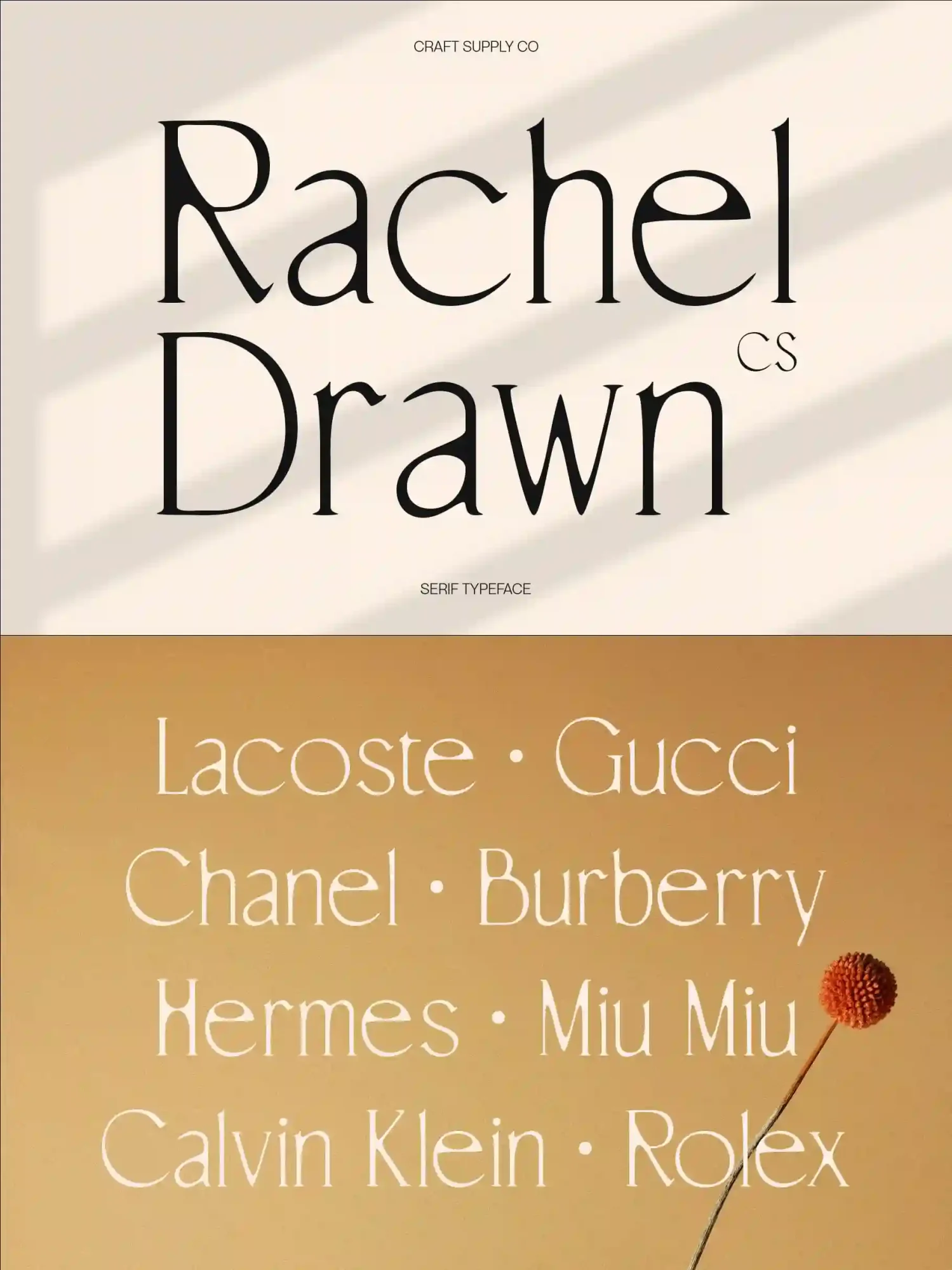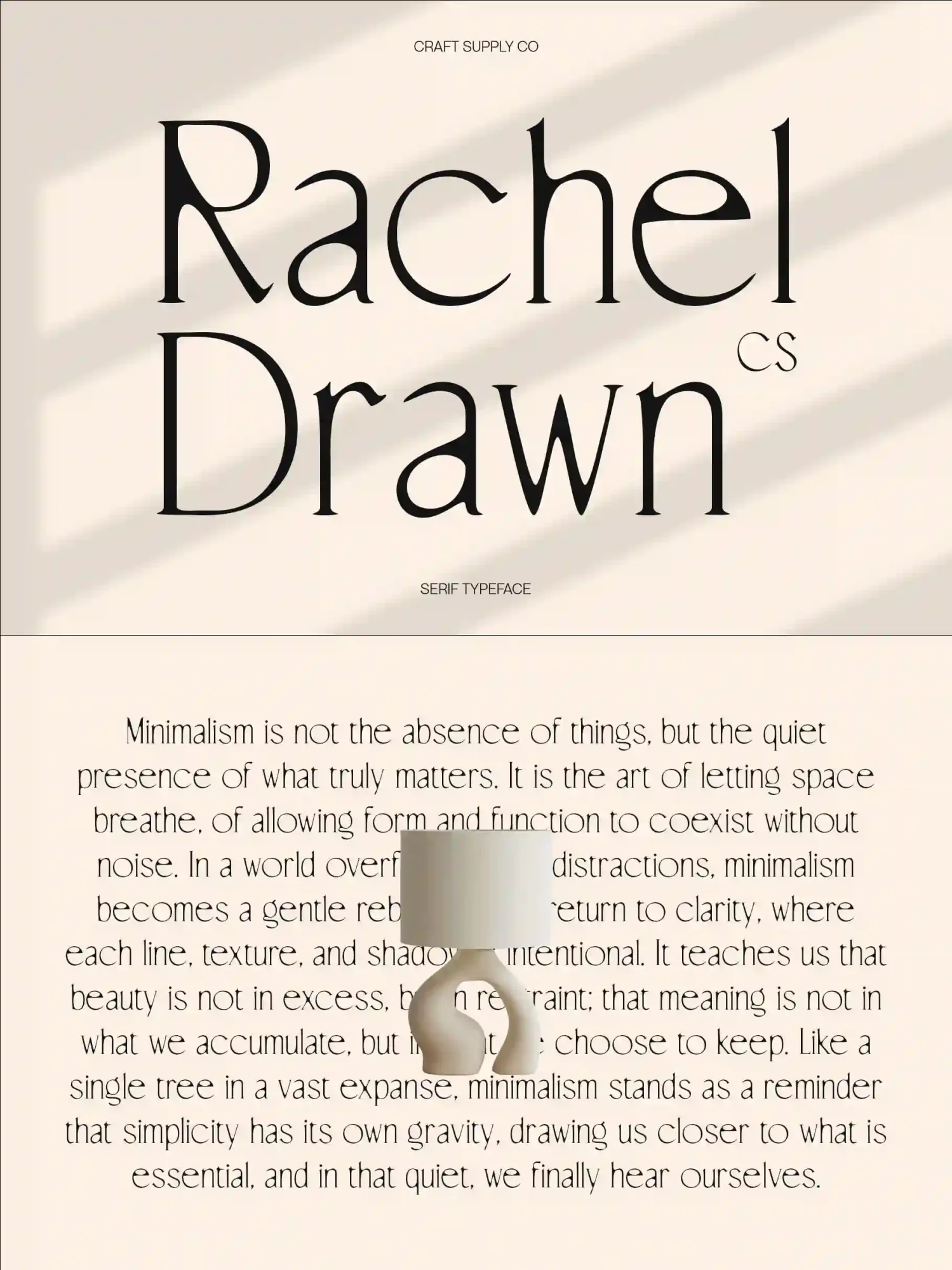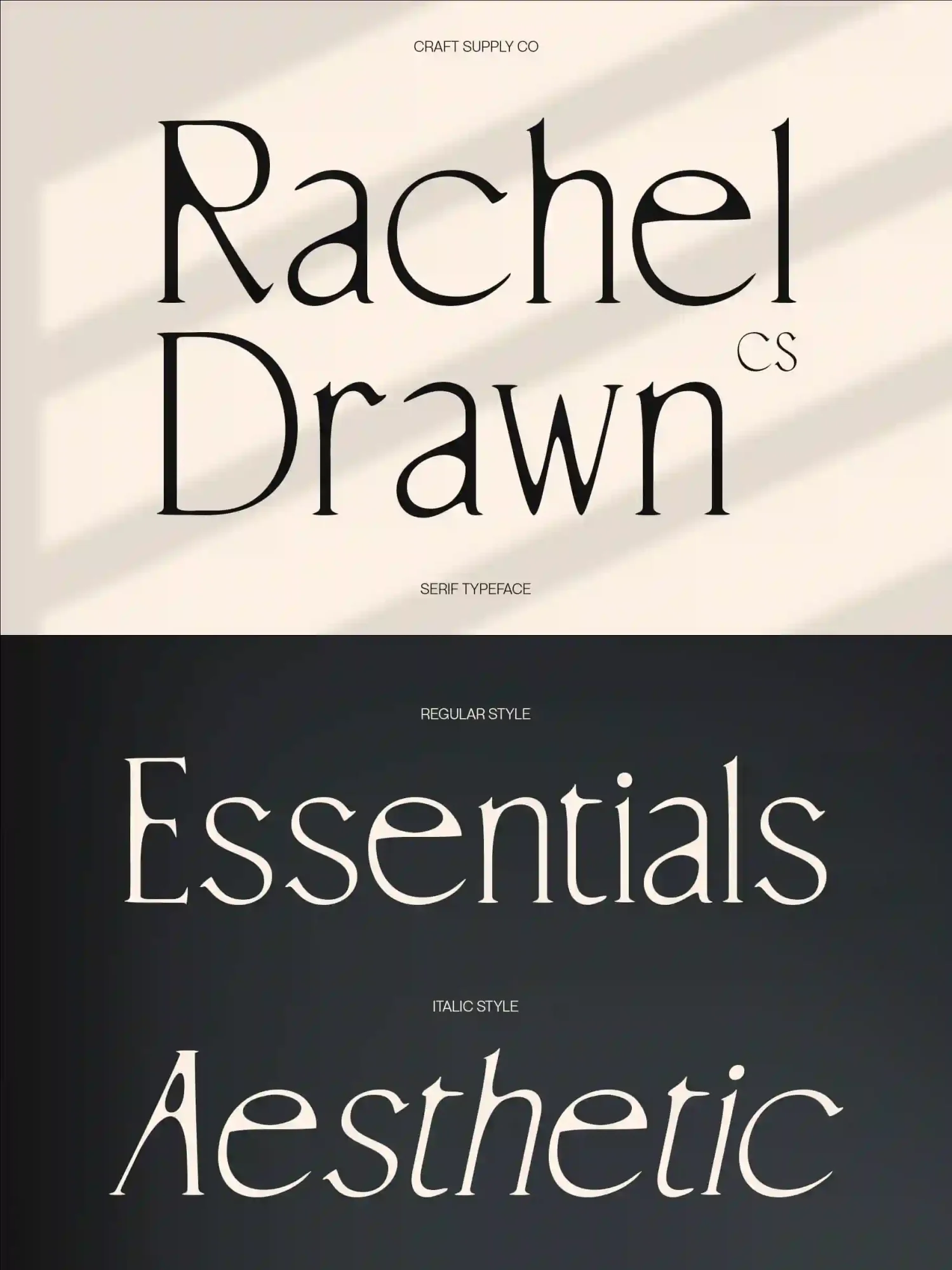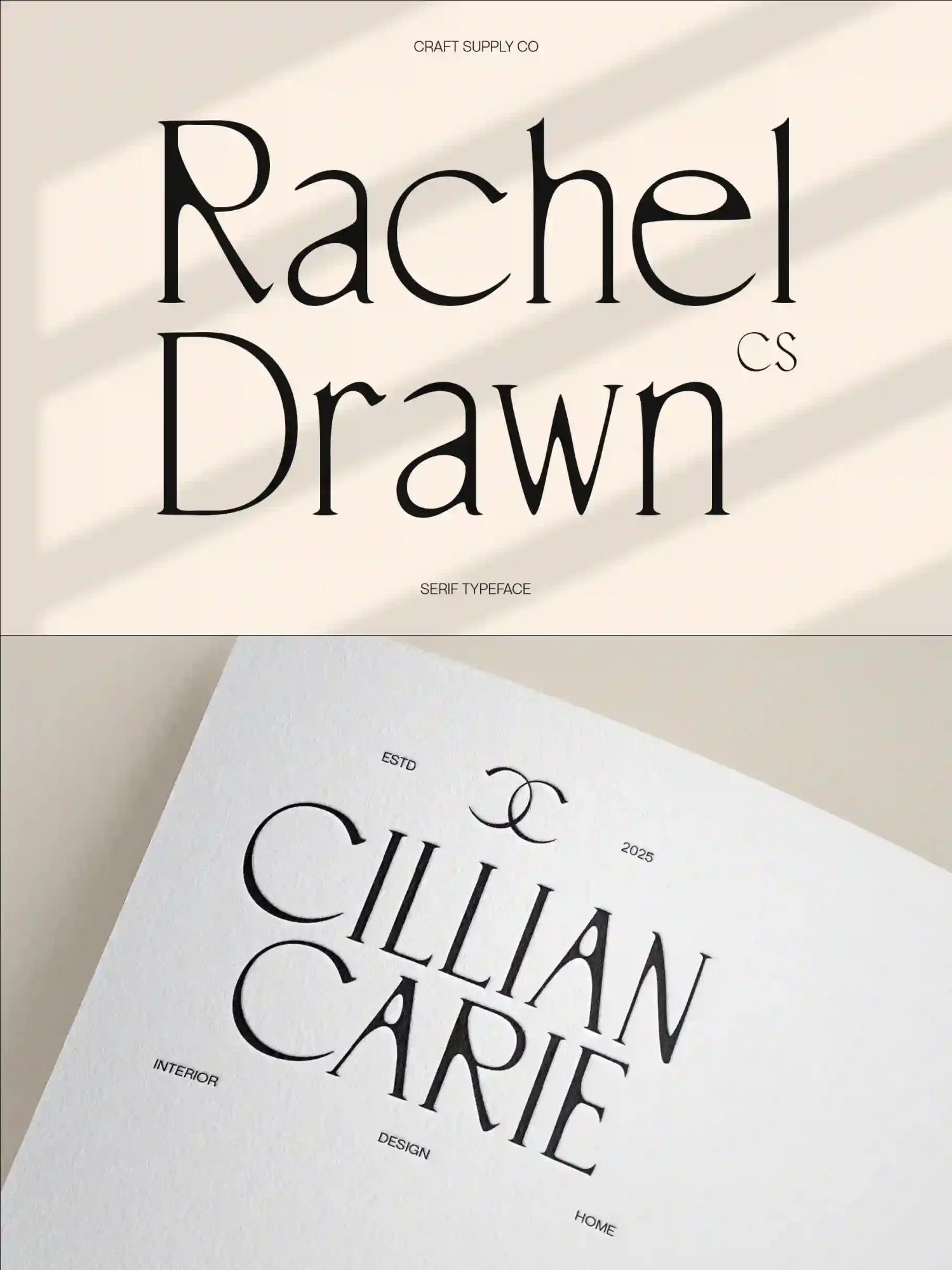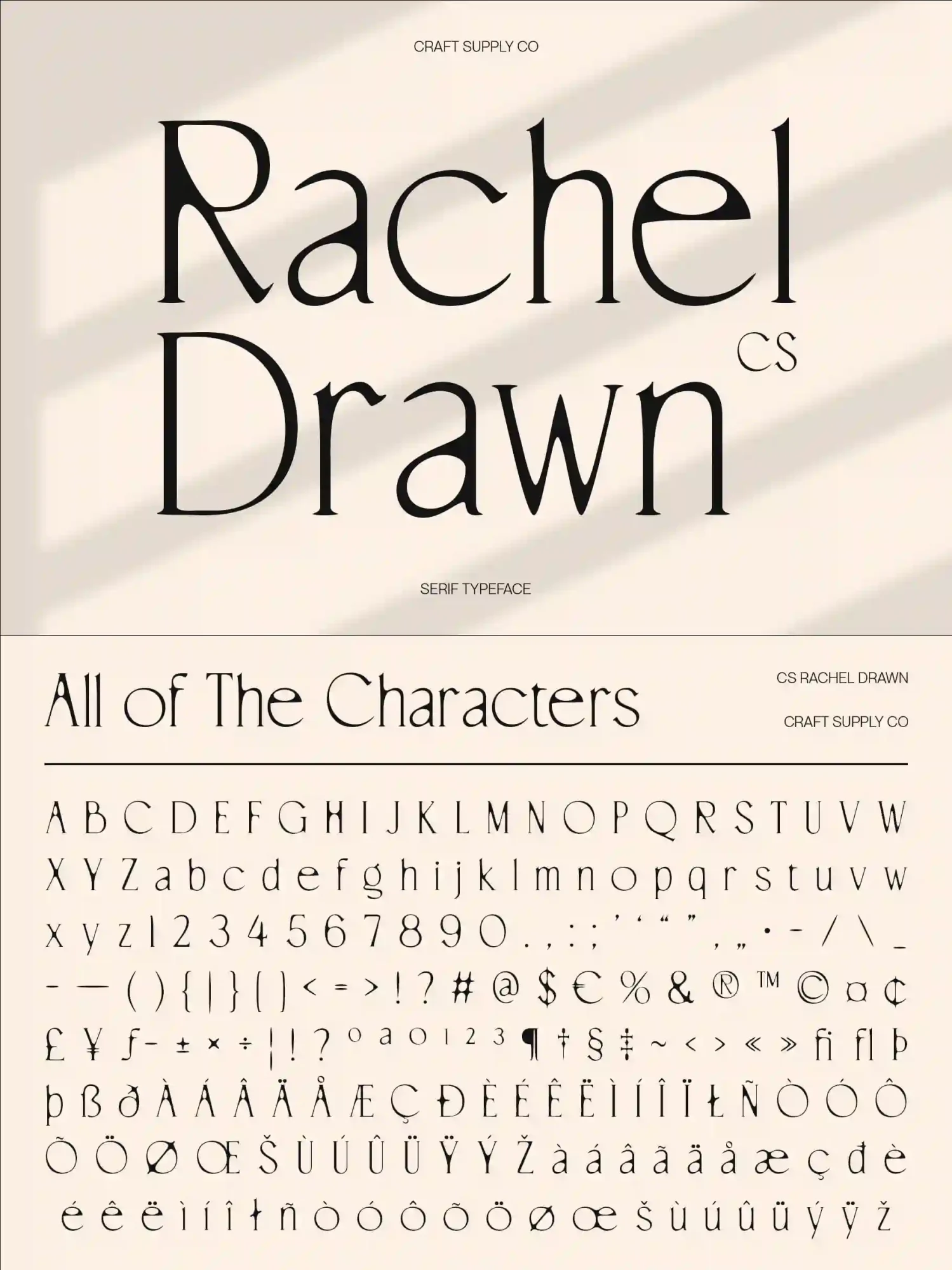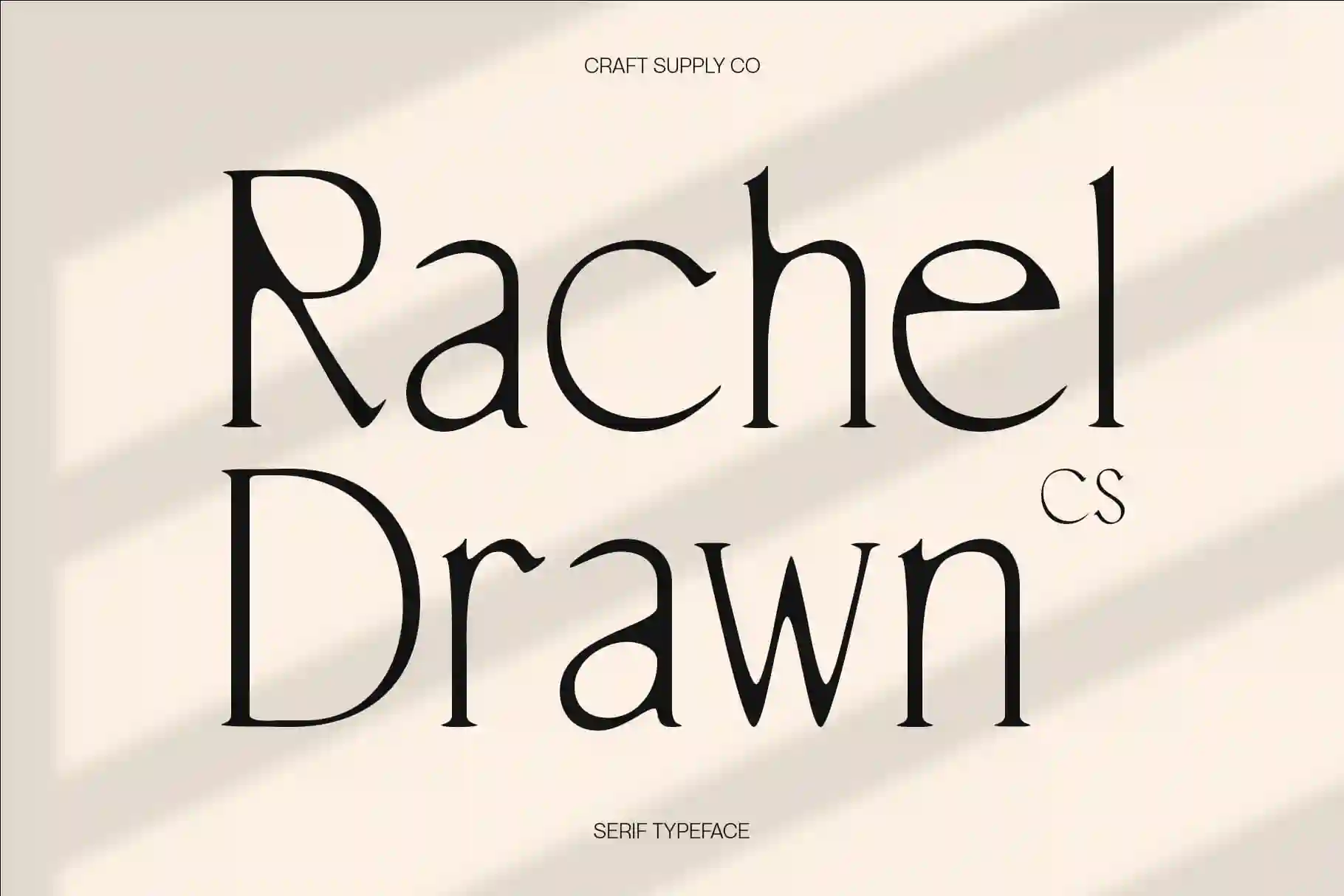
CS Rachel Drawn: Modern Serif with Handmade Elegance
Modern Serif Font with Drawn Effect
CS Rachel Drawn is a modern serif font featuring slim, clean letterforms and gracefully elongated serifs. Its contemporary structure exudes elegance and refinement, making it perfect for designs that aim to convey sophistication.
Handmade Drawn Texture
Enhanced with a subtle drawn effect, each character gains a handcrafted touch that adds depth and individuality. This artistic texture transforms the modern serif forms into visually engaging typography with personality.